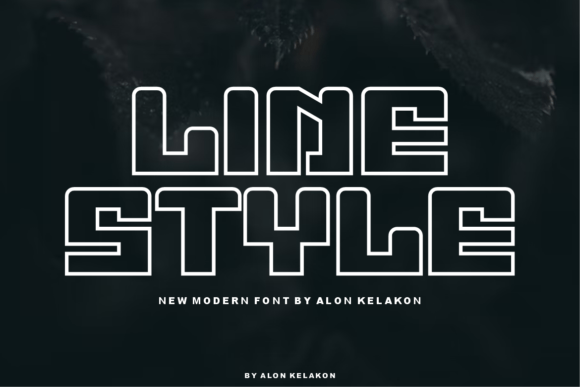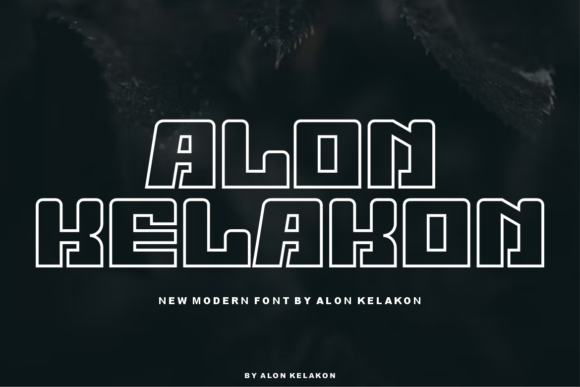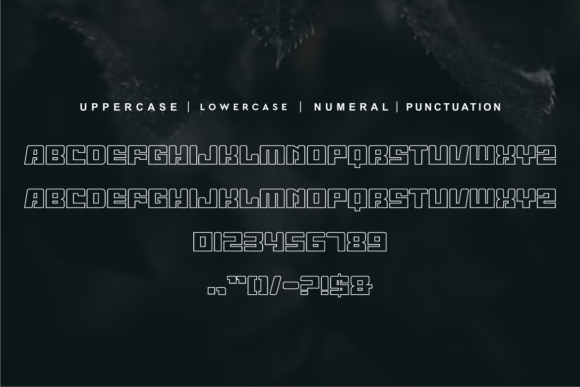
Introduction to Avageri Line Font
Avageri Line Font is unique.
Ready to use for your design like labeling, clothing, movie screen, poster, movie title, gigs, album covers, logos, and much more .
Key Features of Avageri Line Font